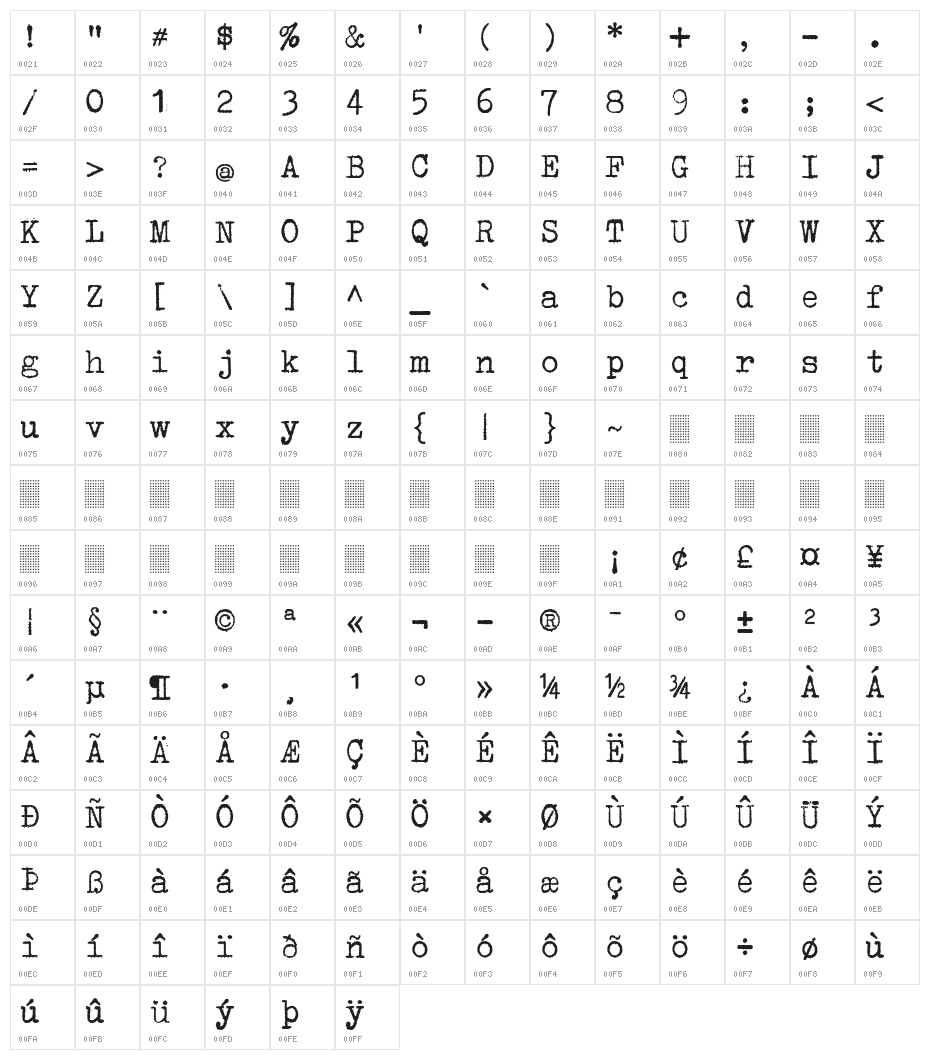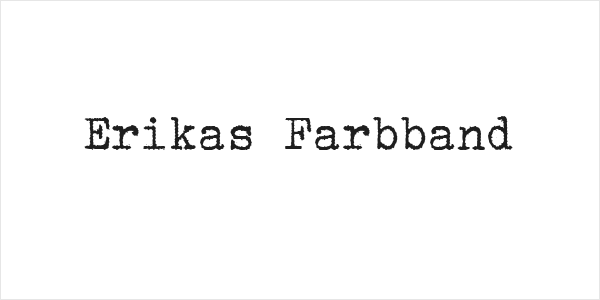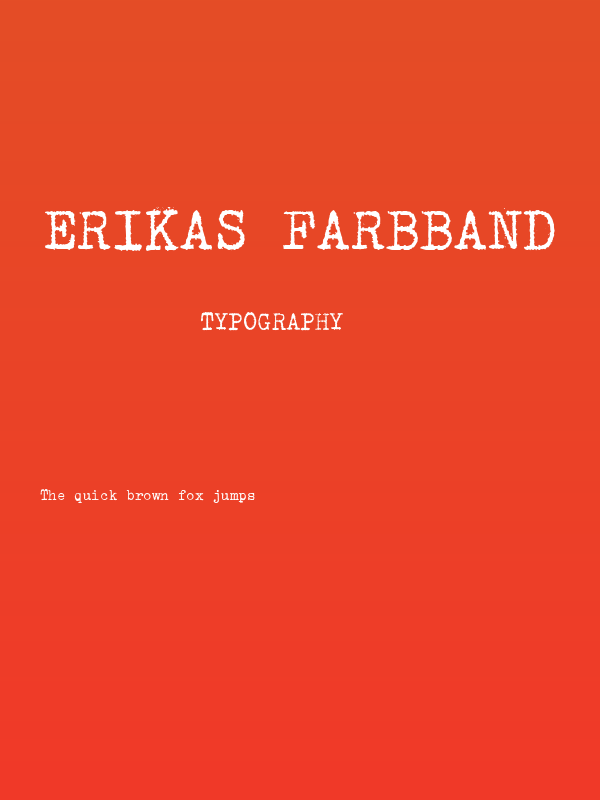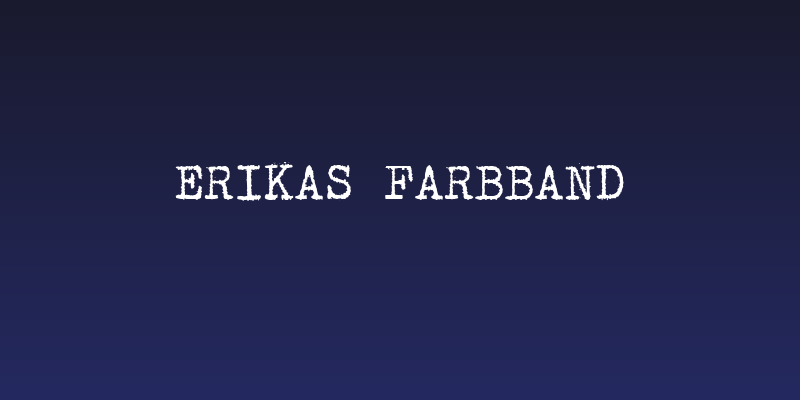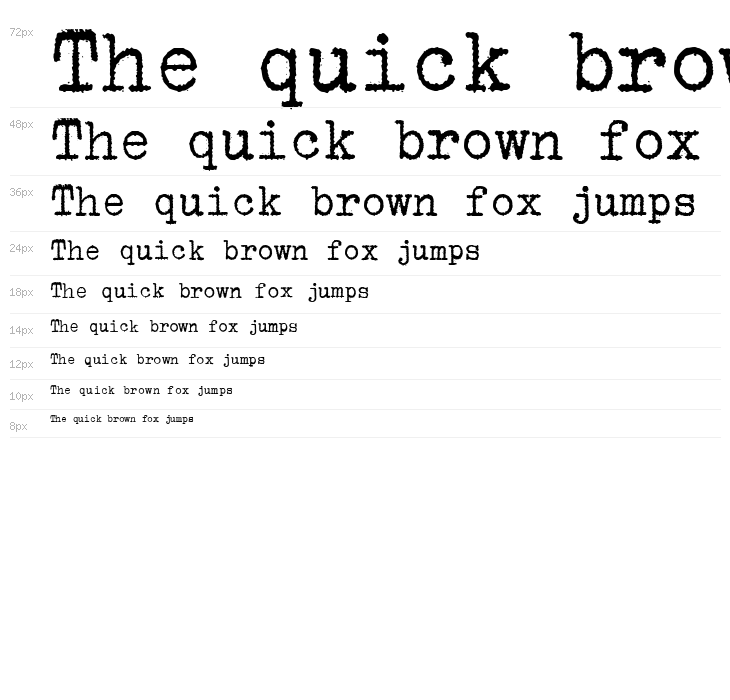
Erikas Farbband Font
Erikas Farbband Description
This typeface exudes a vintage, typewriter-inspired aesthetic, characterized by its distinct, slightly irregular edges and textured appearance. The uppercase and lowercase letters maintain a consistent height, providing a uniform look. The numerals and special characters follow the same textured style, enhancing the overall retro feel. The font's design suggests an old-school, mechanical printing method, making it ideal for projects that aim to evoke nostalgia or a historical context. Its readability is maintained despite the textured effect, making it versatile for various design applications.
| Proposed Projects | Ideal for retro-themed designs, vintage posters, historical documents, and creative projects seeking a nostalgic touch. |